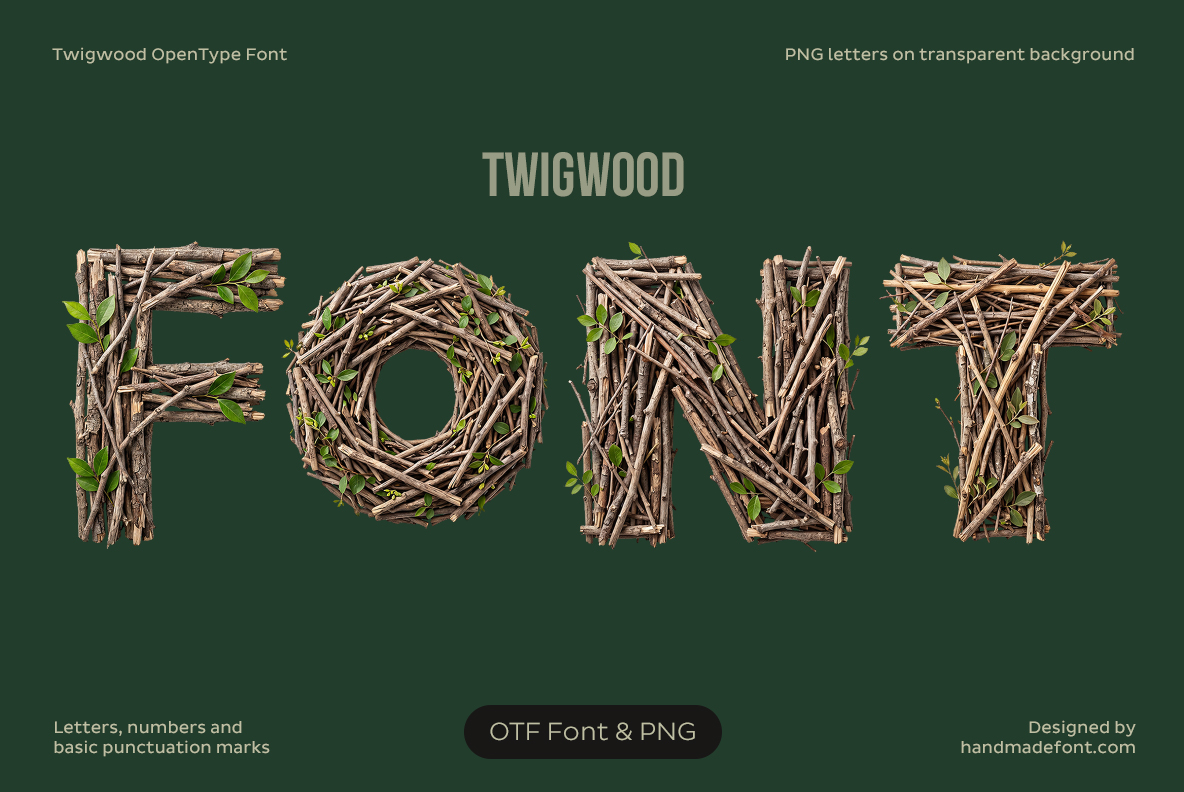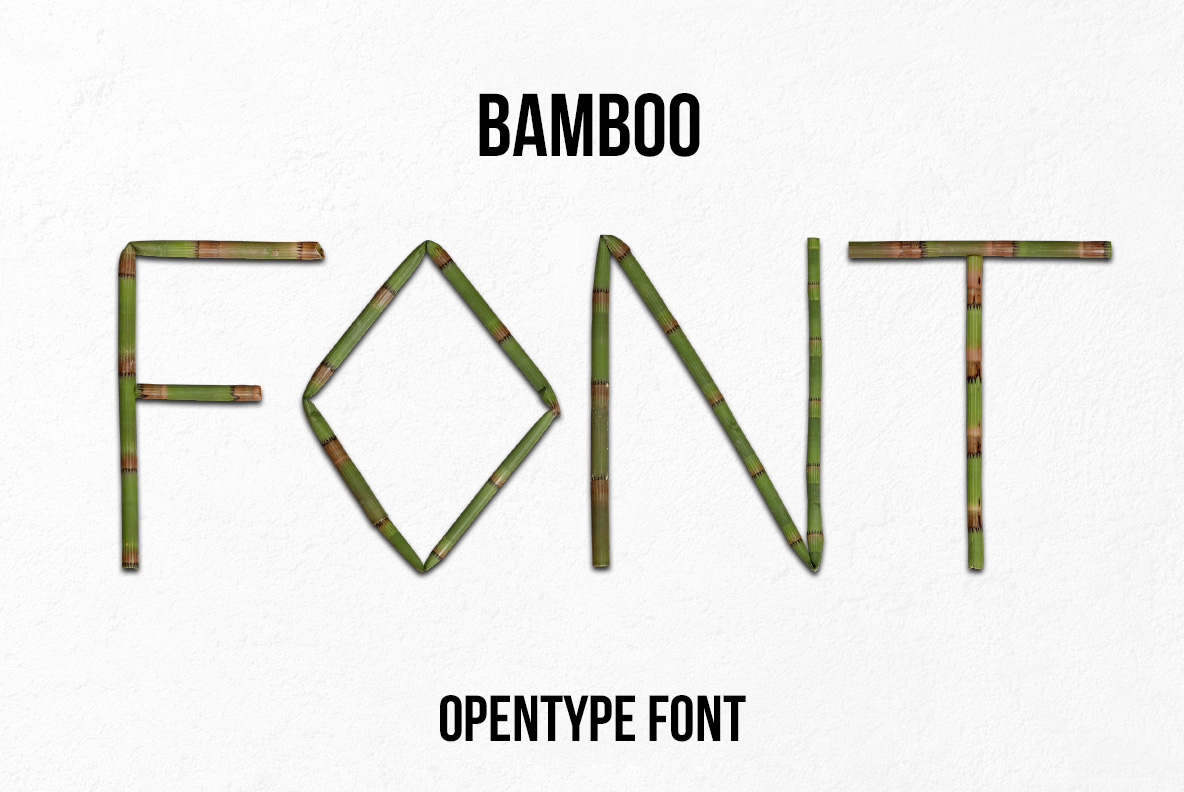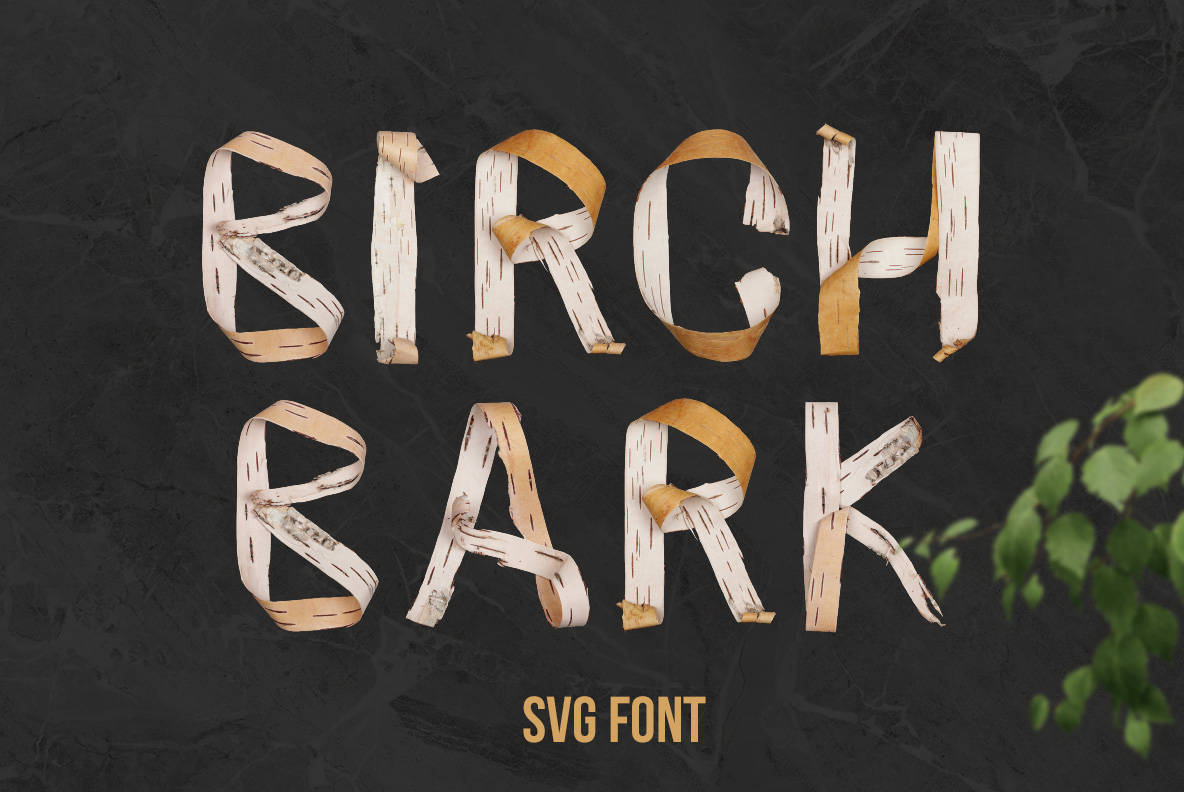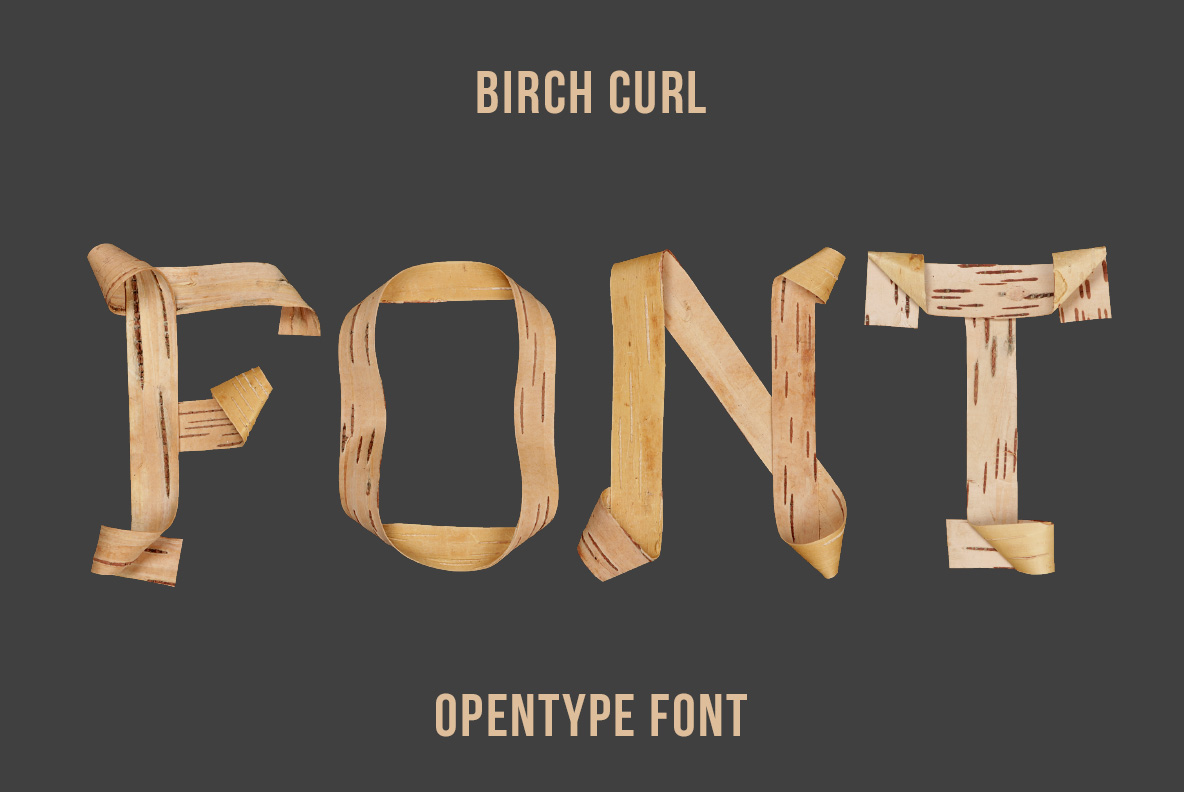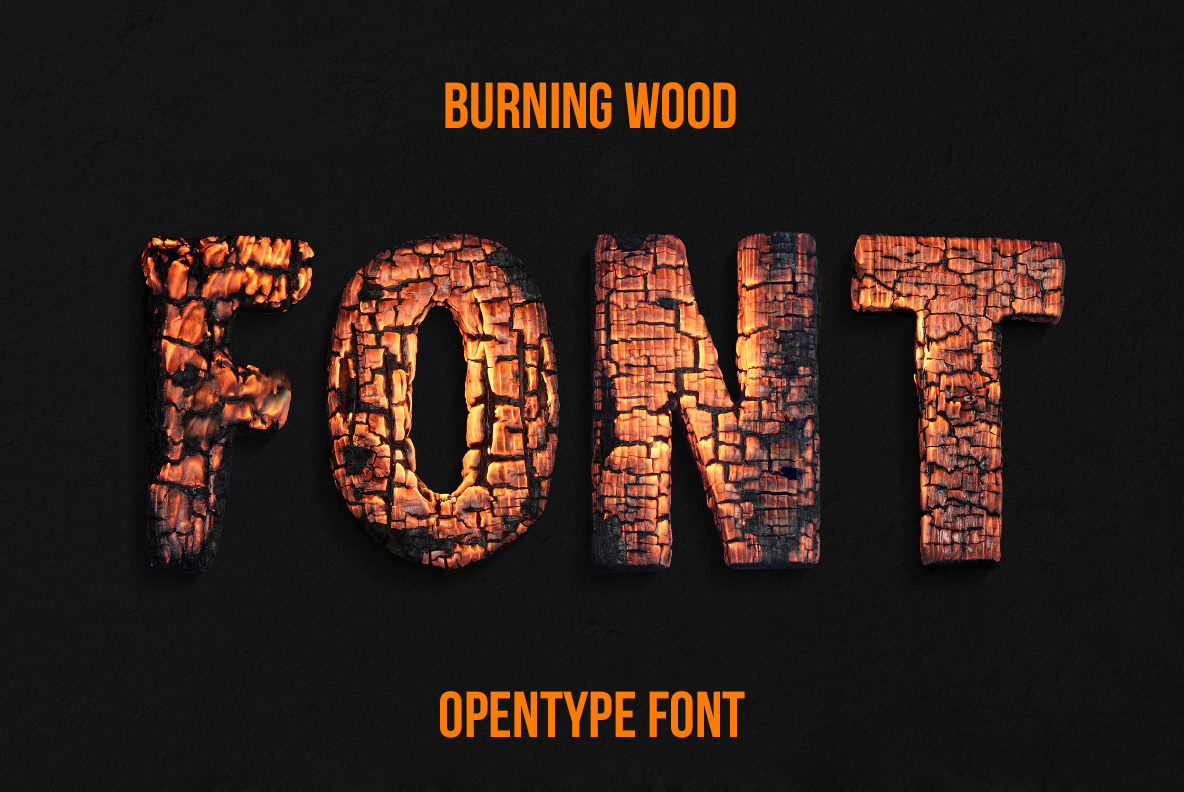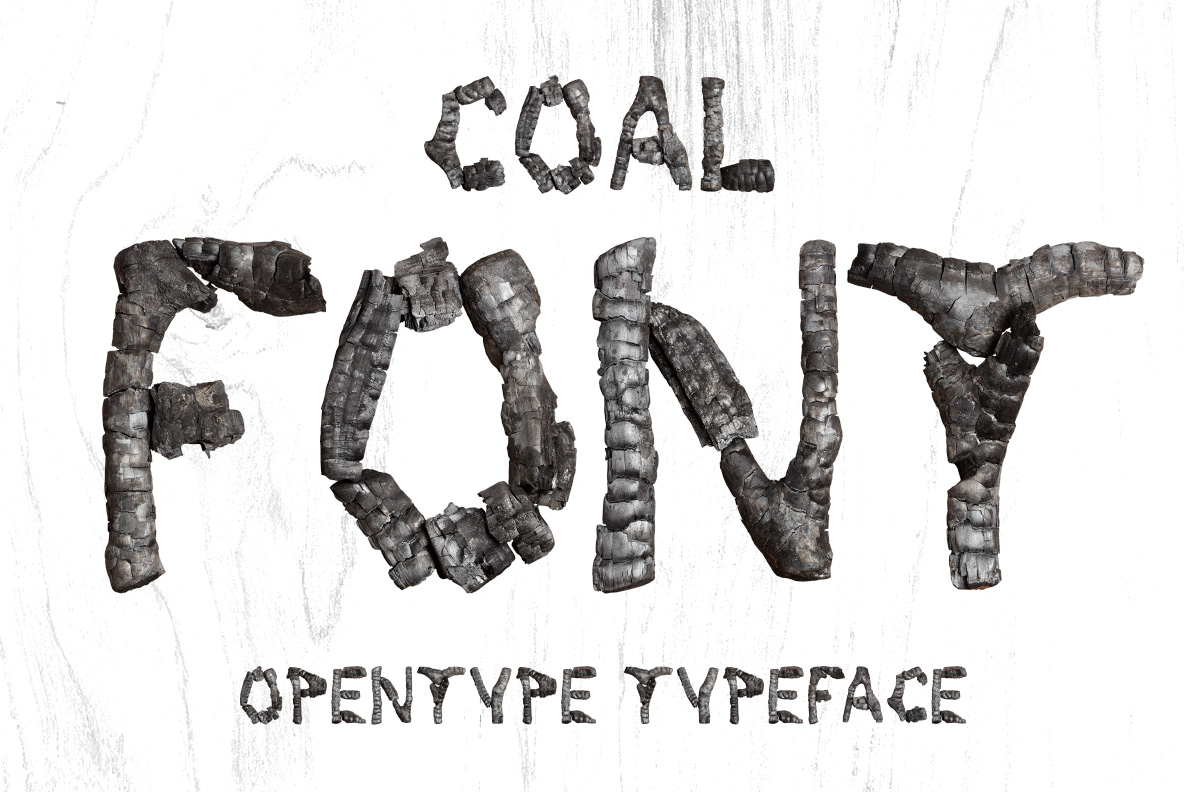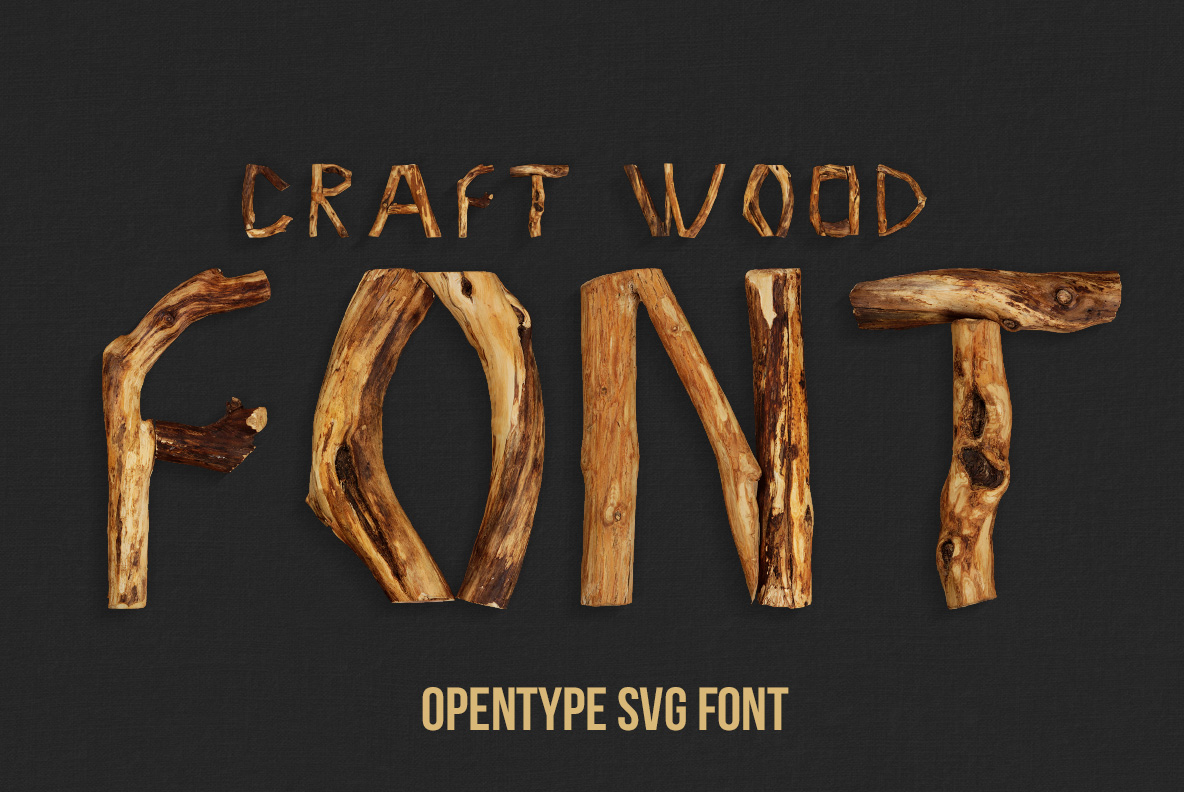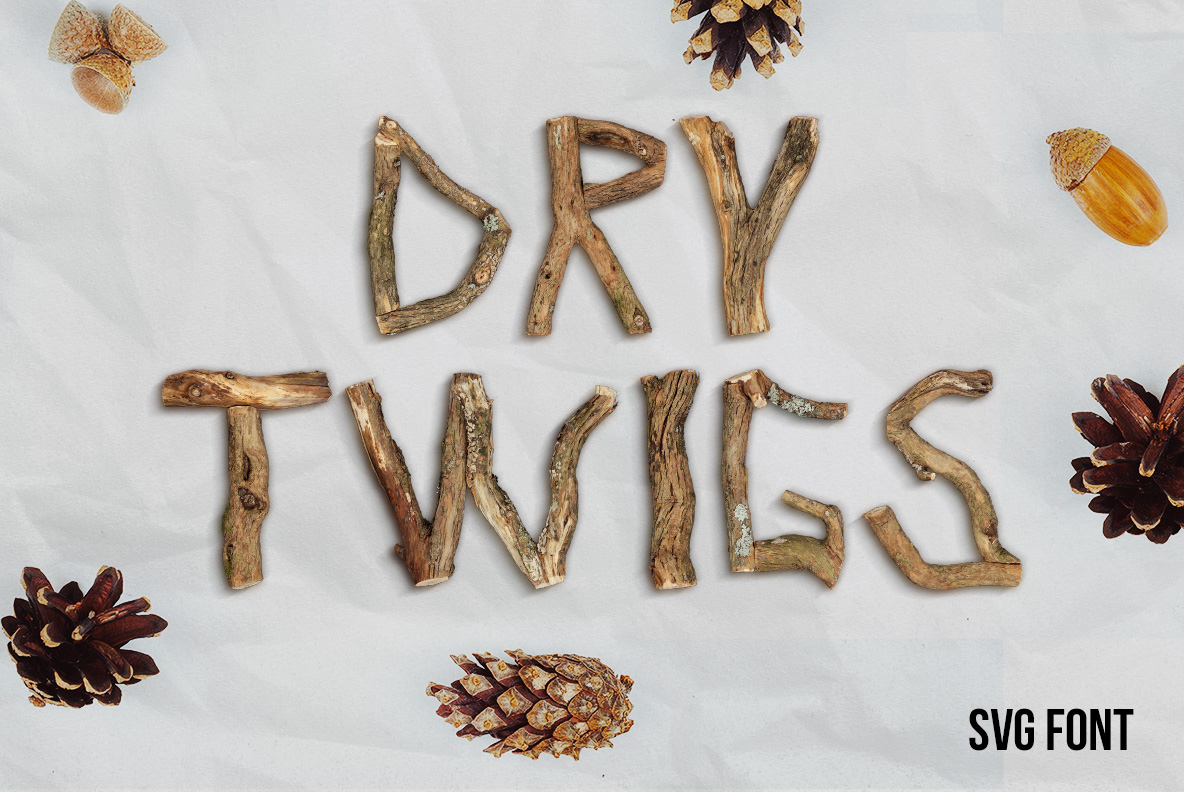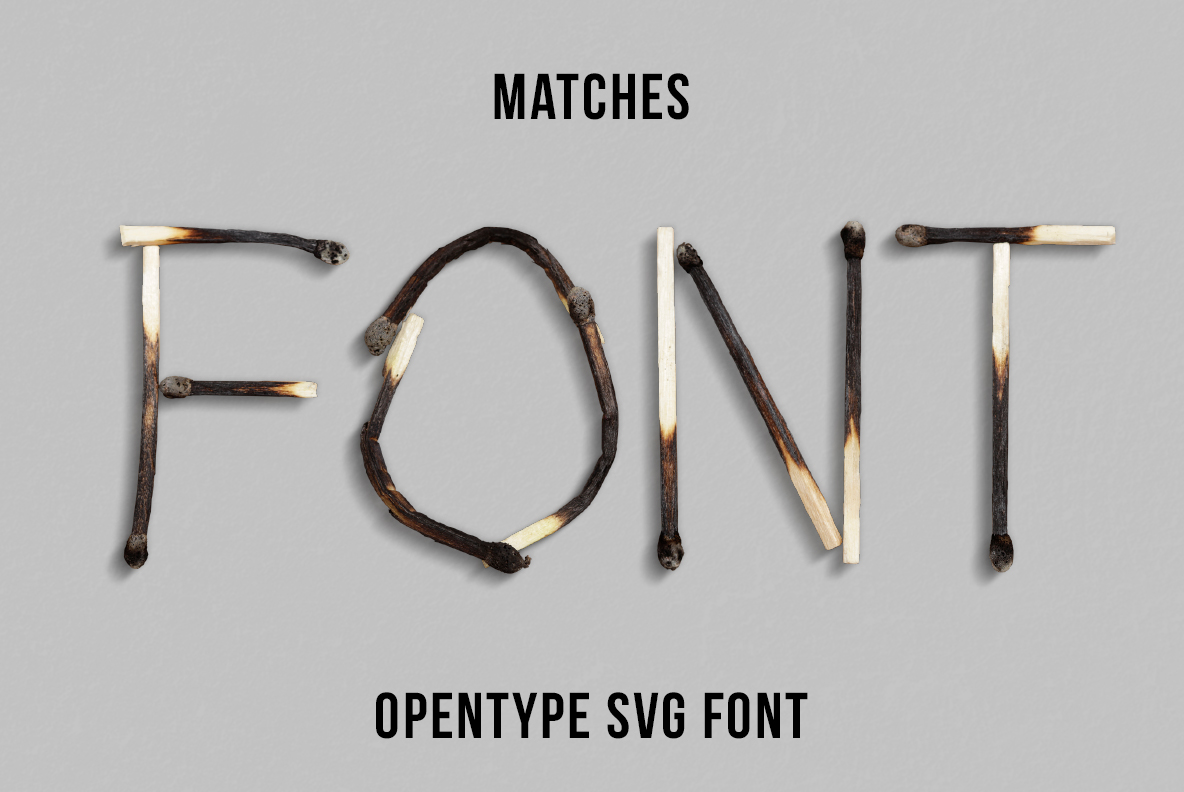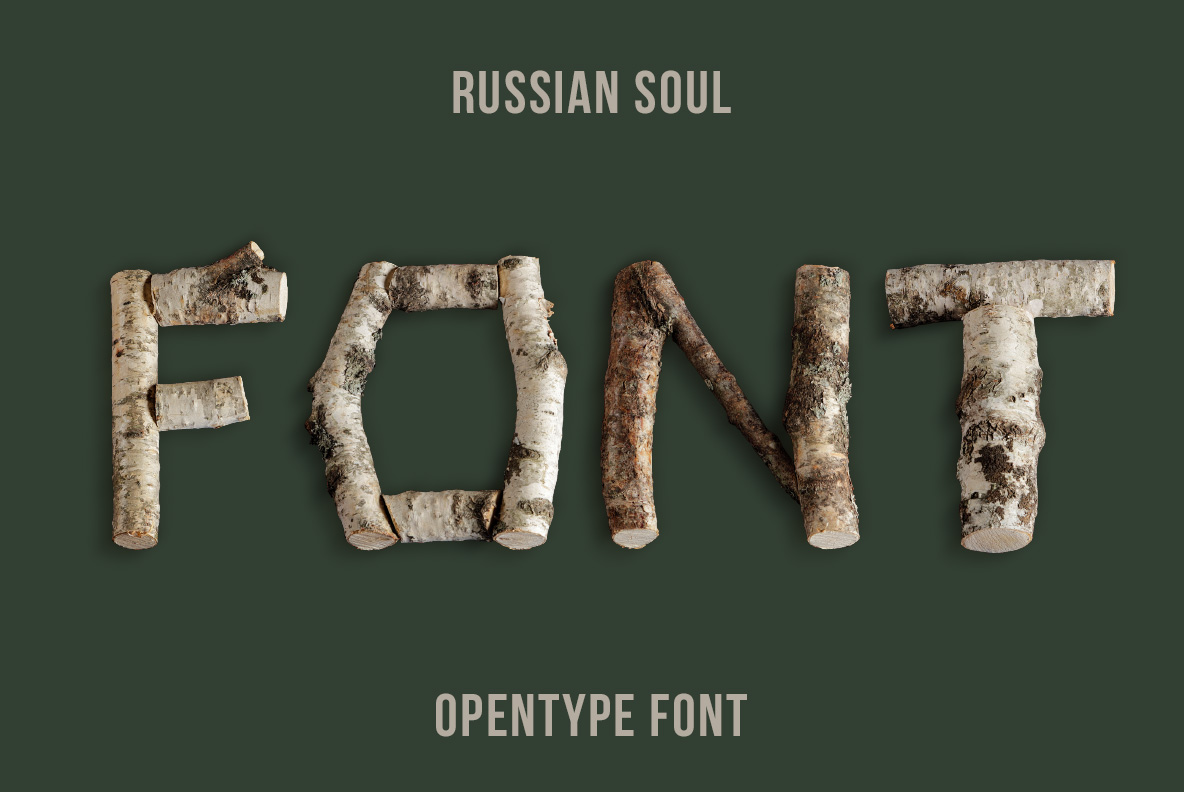
Wooden Fonts – Creative Wood & Timber Typefaces
Discover Wooden Fonts inspired by timber, bark, branches, logs and natural wood textures. This collection brings the warmth and character of real materials into expressive typography. From polished oak letters to rough twigs, birch bark and burned wood, every typeface offers a distinctive visual personality. Explore wooden lettering for posters, branding, packaging, outdoor graphics and creative projects.
Wooden Fonts is where the shop keeps everything with grain in it, and the range is wider than the word suggests. There is planed board with screws through it, firewood split by axe, twigs so thin you can see the plaster behind them, and a set of spent matches. None of it is a wood-effect overlay: each letter was cut, stacked or tied first.
Sawn, Split, Charred and Lashed Together
Twigwood wooden font made from natural twigs, branches and green leaves
Twigwood Font
Thin twigs lashed into shape with a few green leaves still attached.
Birch Curl Font letters made from curled natural birch bark
Birch Curl Font
Pale birch shavings curled and pinned into letterforms.
Burning Wood Font with glowing charred wood letterforms
Burning Wood Font
Charred logs still glowing orange down in the cracks.
Dry Twigs Font alphabet constructed from natural branches and dry wood
Dry Twigs Font
Bleached sticks snapped to length and laid out on black.
Oakwood Font featuring realistic dark wooden letters with natural grain
Oakwood Font
Dark planed boards with iron nails driven in at the joints.
Russian Soul Font made from natural birch branches and logs
Russian Soul Font
White birch logs, black bark scars, cut square at both ends.
Sticks Font constructed from natural twigs tied together with rope
Sticks Font
Branches crossed and bound with twine at every junction.
Wooden Font – Natural Timber Typography
Pine Board Font
Smooth pine boards screwed together over a green grain wall.
Wooden Logs Font with 3D letters made from cross sections of wooden logs
Wooden Logs Font
Sawn log ends showing the growth rings straight on.
Wooden OpenType Font made from realistic branches, bark and carved logs
Wooden OpenType Font
Rough branch pieces with the bark left on, arranged into a loose script.
Bamboo Font with handmade letters constructed from natural green bamboo stems
Bamboo Font
Green bamboo canes, joints and all, cut to length.
Birch Bark Font with handmade letters shaped from curled strips of natural birch bark
Birch Bark Font
Torn strips of birch bark, papery white side up, on slate.
Coal Font with handmade black letters constructed from burned charcoal pieces
Coal Font
Lumps of black coal, matte and dusty, on white paper.
Craft Wood Font featuring rustic handmade letters constructed from natural wooden branches
Craft Wood Font
Driftwood bleached by weather, splits running along the grain.
Dry Twigs Font with handmade letters formed from dry branches and natural twigs
Dry Twigs (v2) Font
Thicker knobbly branches with pine cones scattered around them.
Dry Wood Font featuring handmade letters shaped from textured pieces of dry natural wood
Dry Wood Font
Twisted dry vine wood, almost calligraphic, on pale yellow.
Log Font with handmade letters constructed from split pieces of natural wooden logs
Log Font
Split firewood, pale sapwood face out, stacked into shape.
Matches Font with handmade letters constructed from burned and partially burned matchsticks
Matches Font
Spent matches laid end to end, burnt heads showing.
Single Twig Font with minimalist handmade letters shaped from individual natural twigs
Single Twig Font
One bent branch per letter. Nothing joined, nothing cut.
Twigs Brown Font featuring handmade letters constructed from thin brown branches and twigs
Twigs Brown Font
Bare winter twigs, fine as wire, against white plaster.
Wood Log Font with handmade letters shaped from natural logs, branches and textured tree bark
Wood Log Font
Debarked logs in a warm script, the ends cut clean.
Wooden Chain Font with letters constructed from linked wooden pieces forming a flexible handmade alphabet
Wooden Chain Font
Flat wooden links chained together on dark boards.
Title card spelling FONT in the Burn Hell Font with handwritten notes on cream paper
Burn Hell Font
Charcoal capitals with embers still glowing in the cracks.
Wooden Fonts and the Brands That Want Grain
Carpentry, joinery and furniture makers are the natural buyers, and so is anything sold as handmade — craft beer, coffee roasters, farm shops, small distilleries. Cabins, campsites, scout groups and outdoor gear come next. The charred and split ones suit barbecue and smokehouse work, while the fine twigs go to wedding stationery and quiet editorial. A note on scale: bark and twig detail disappears below about 40pt, so treat these as headline faces.